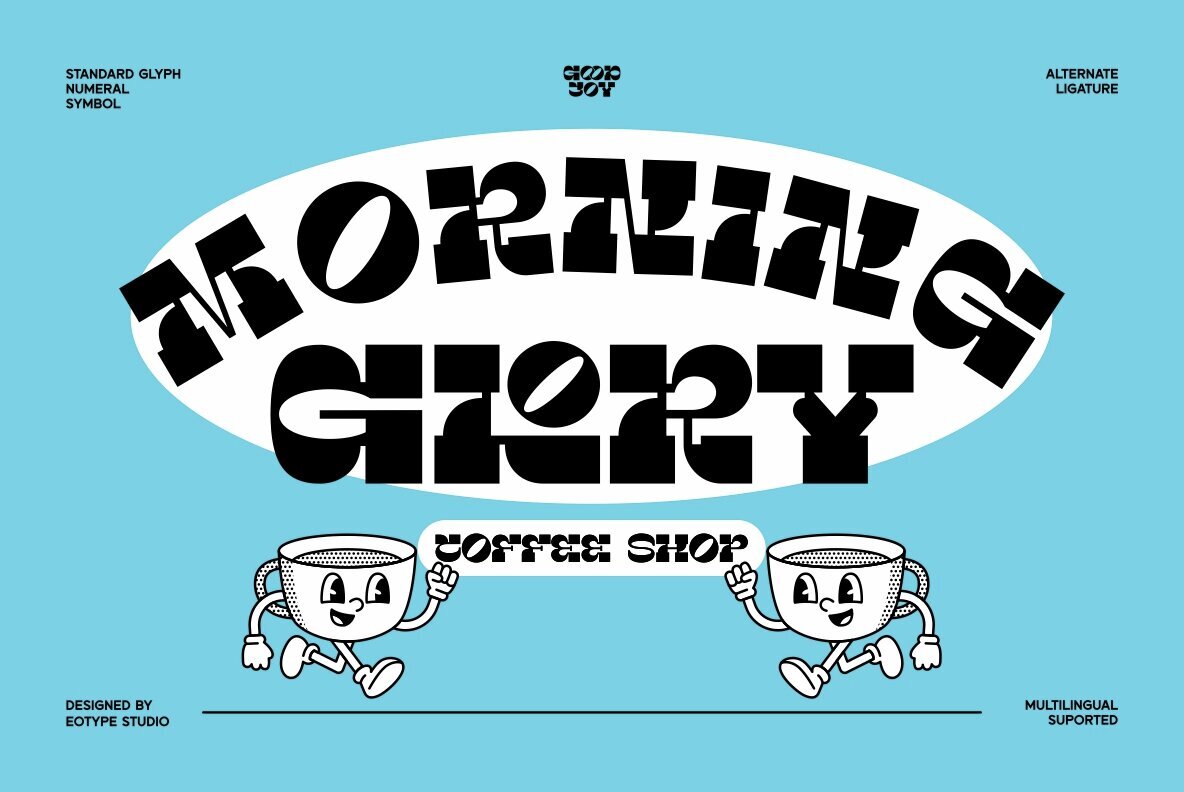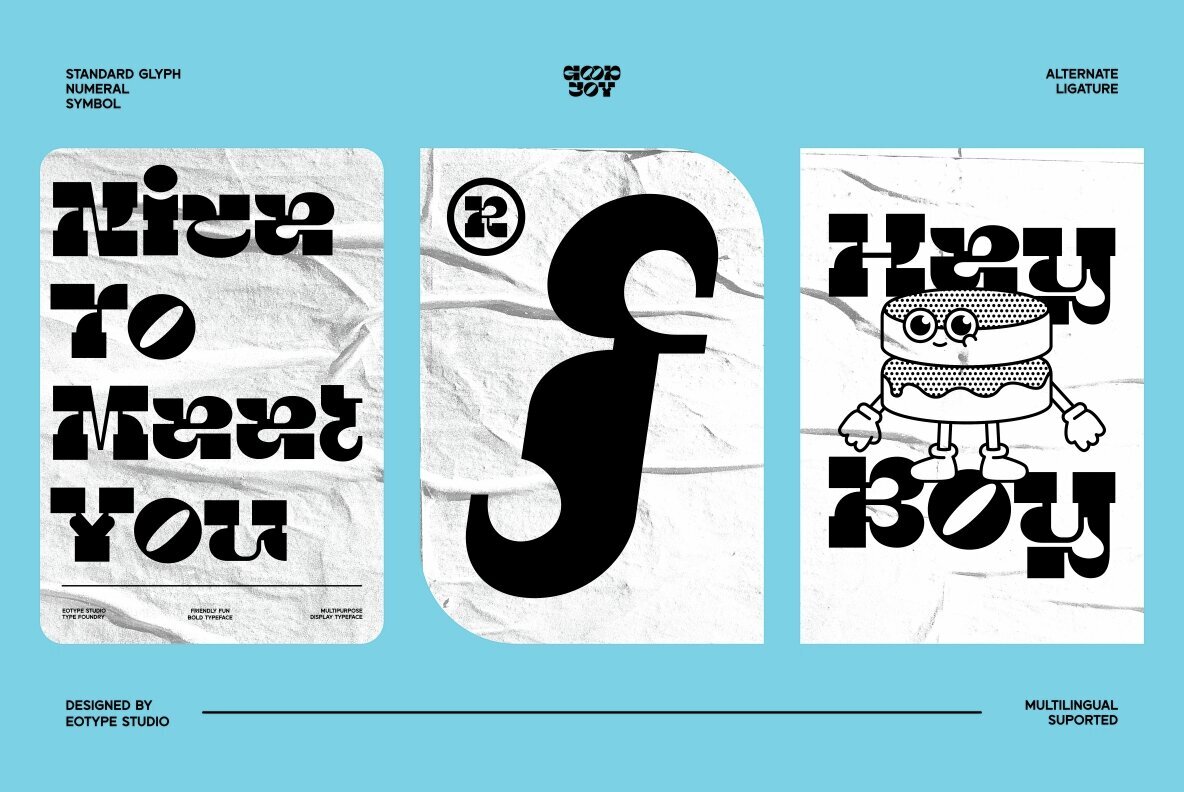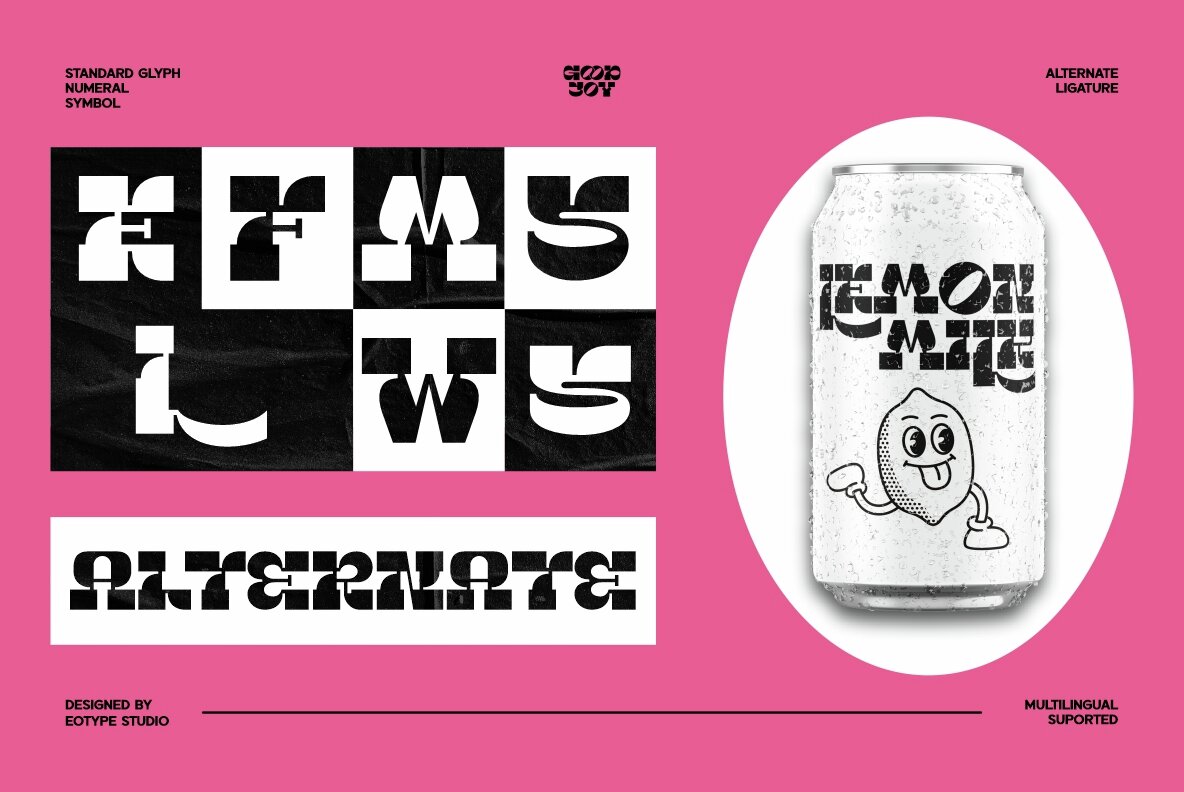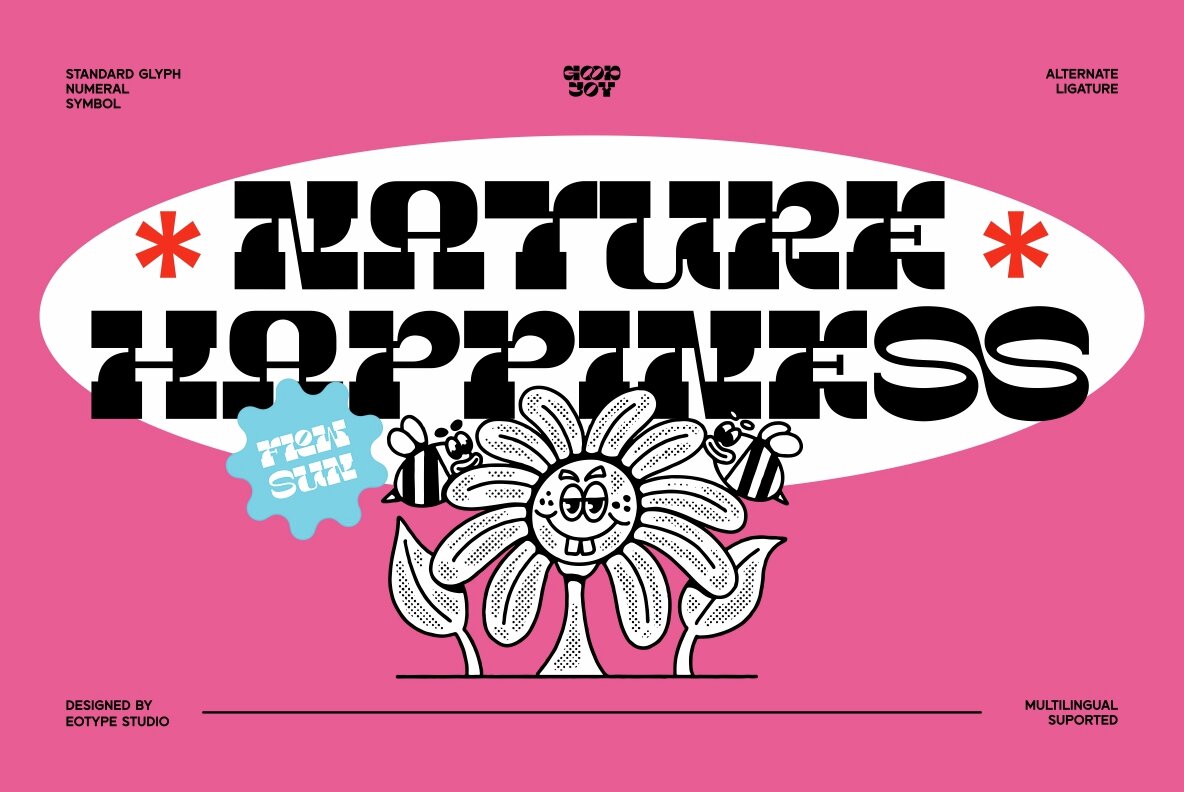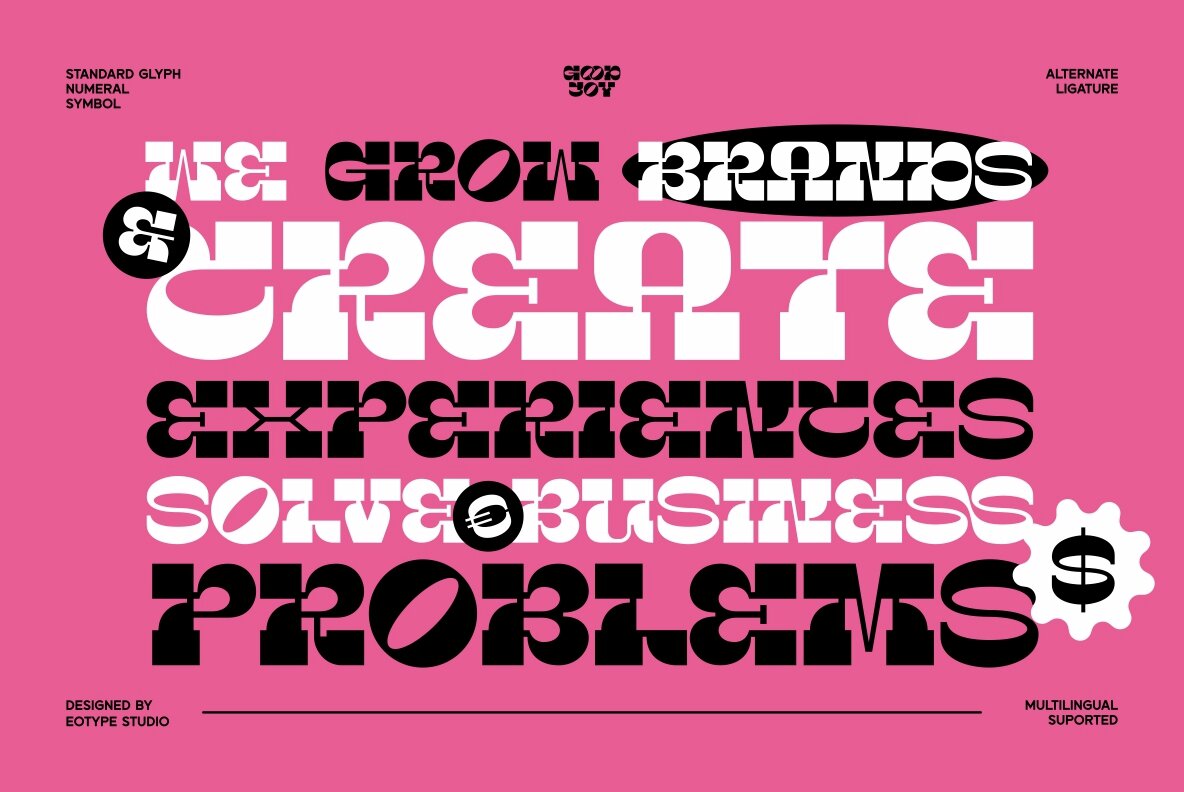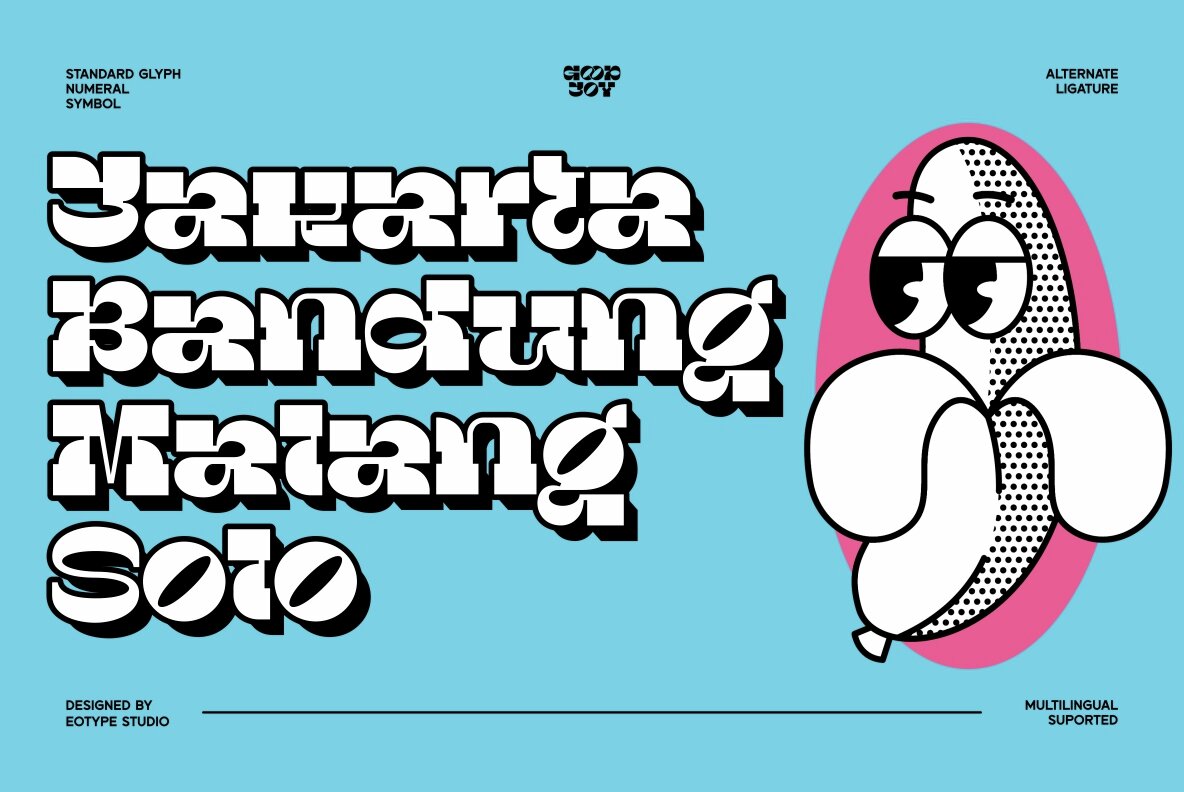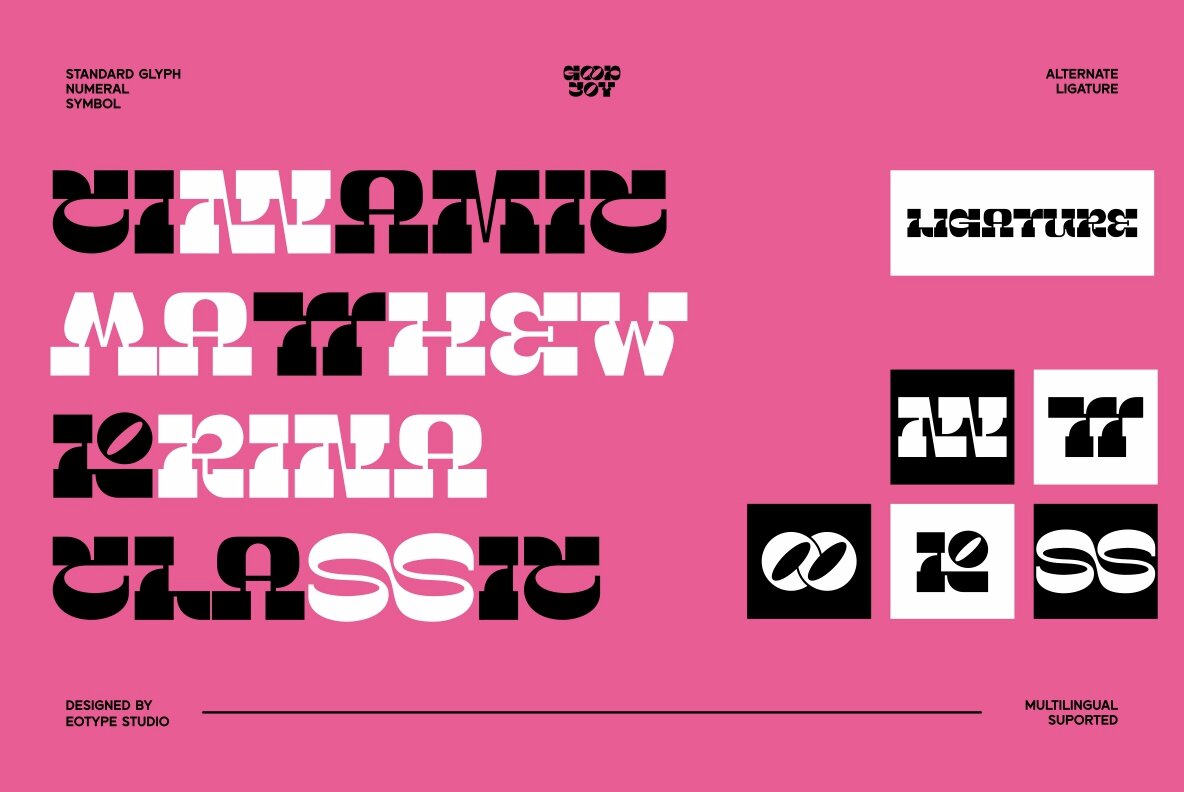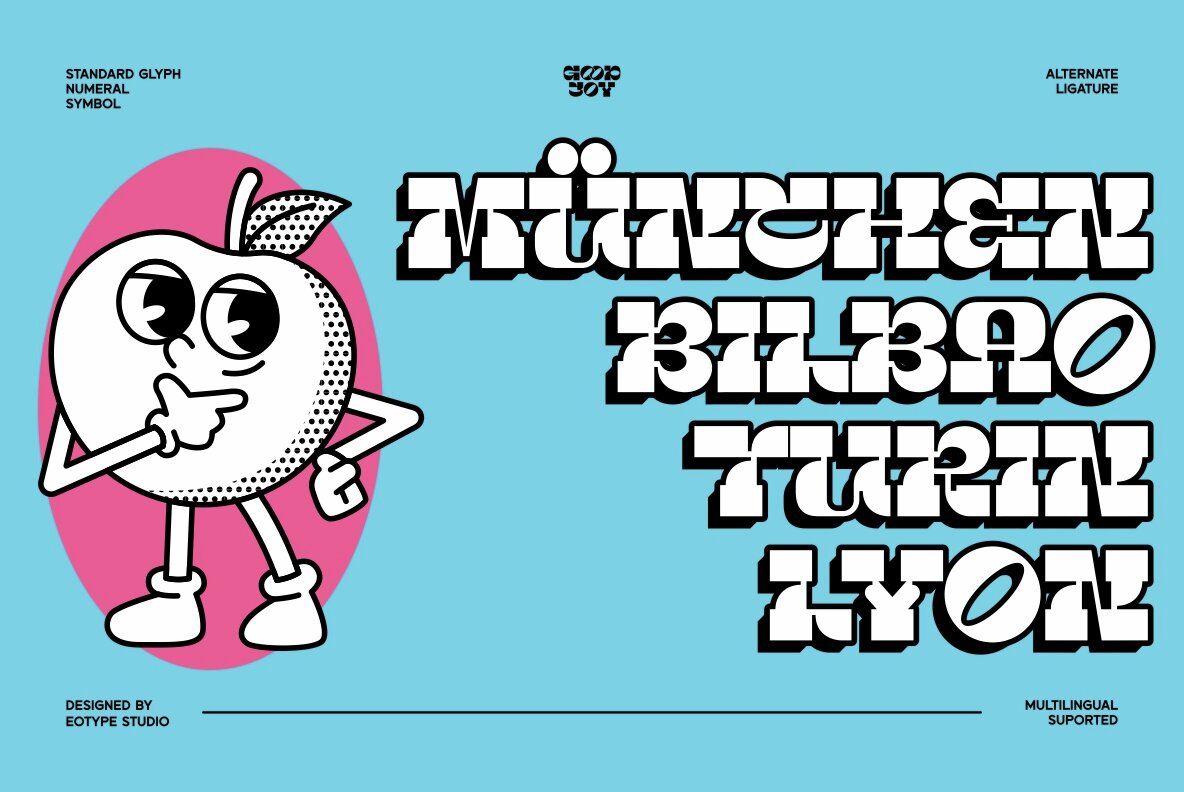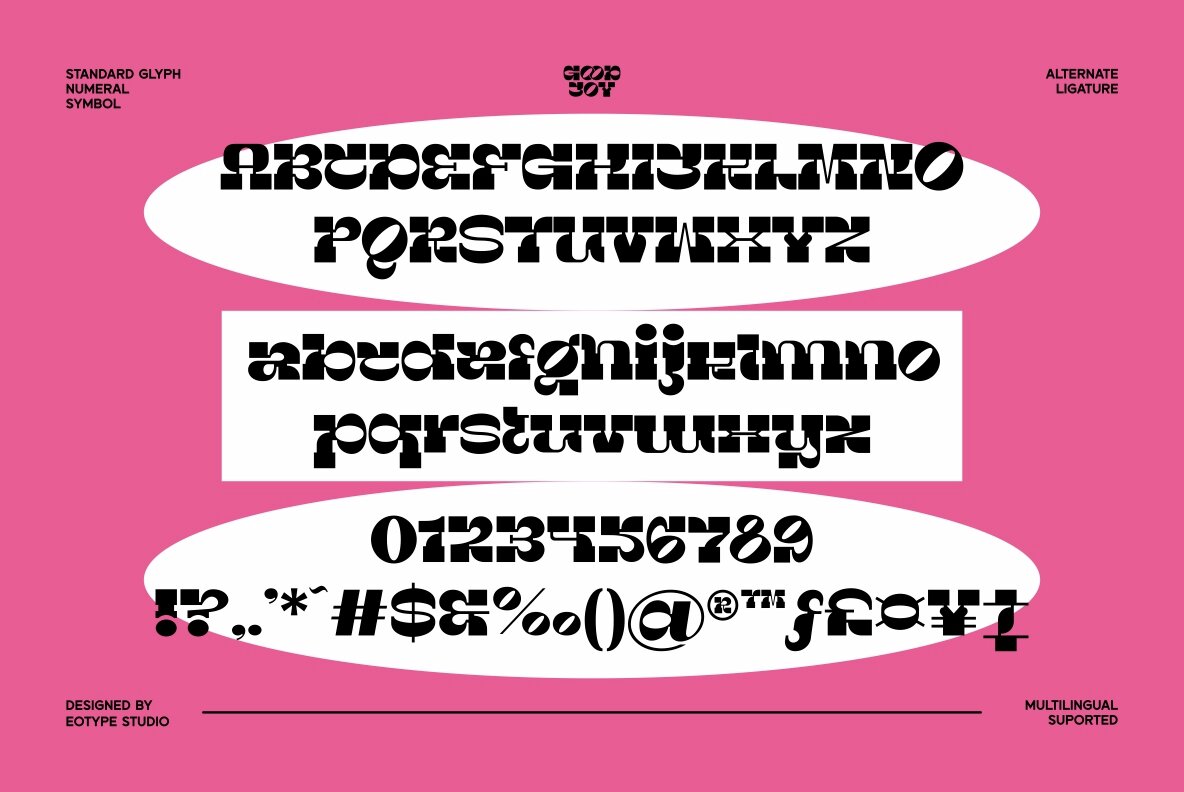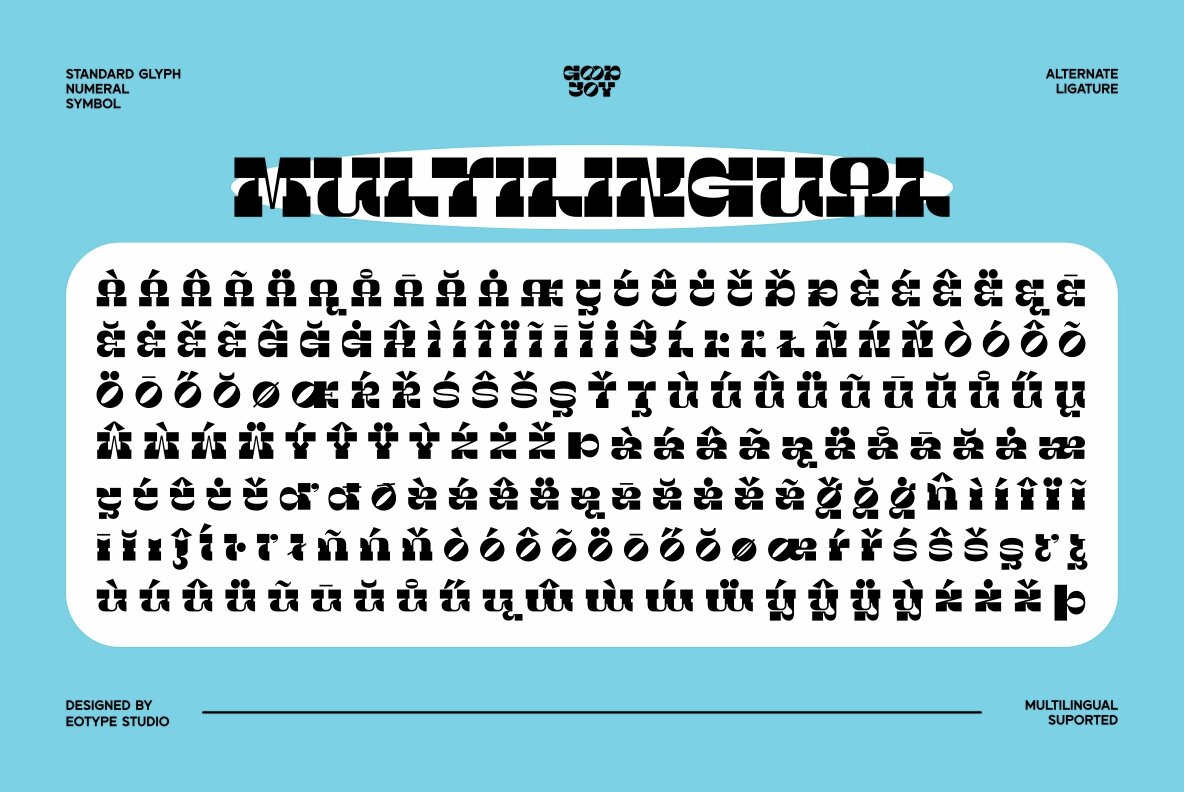
Good Joy Font
Good Joy Regular
Good Joy is unique and versatile slab serif display font. This font can give your designs a playful and friendly impression. This font comes with alternative style and ligature features which are suitable for various projects such as logos, product labels, posters and many more.